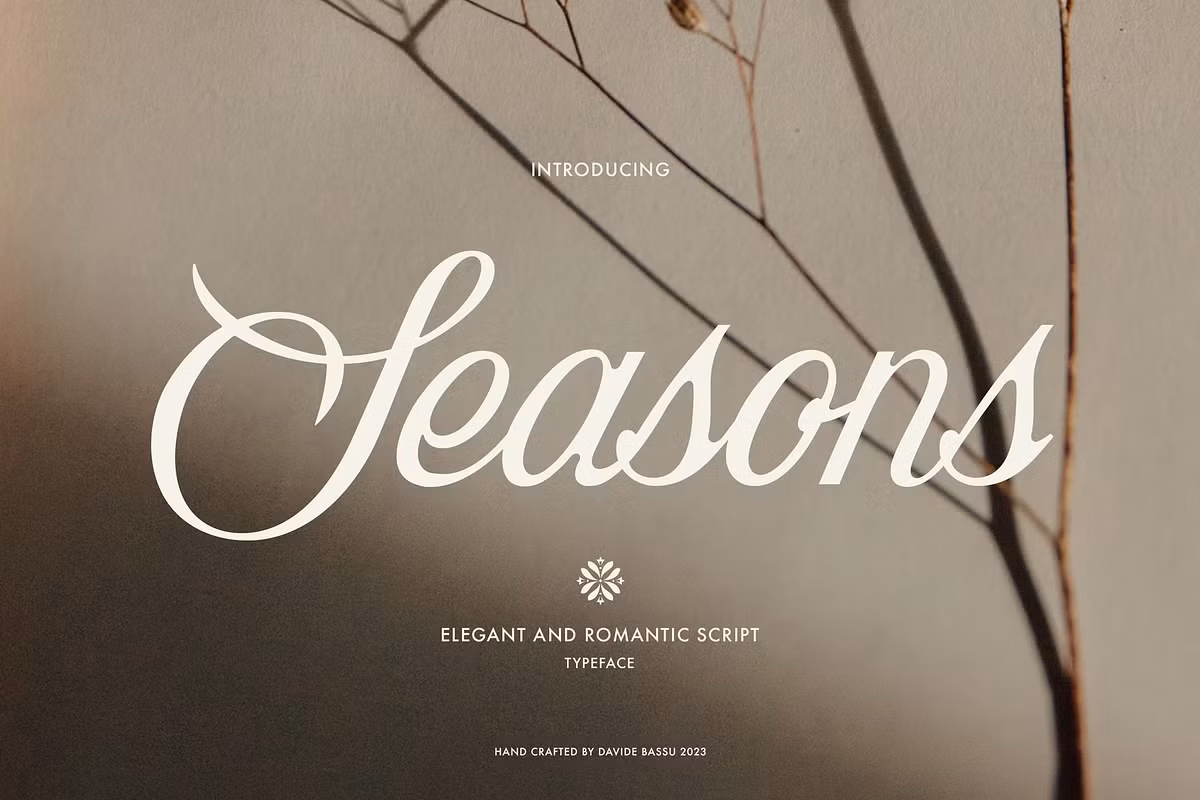
Seasons Script Font Free Download is a beautiful and flowing handwritten script typeface that captures the charm and elegance of personal calligraphy. With its smooth, fluid strokes and graceful curves, this font is perfect for creating elegant invitations, logos, greeting cards, branding, and other designs that require a sophisticated yet approachable look.
Inspired by natural handwriting, Seasons brings warmth and personal flair to any design, making it ideal for both modern and classic projects. Whether you're working on wedding materials, holiday cards, or creative branding, this font adds a touch of elegance and personality to your typography.